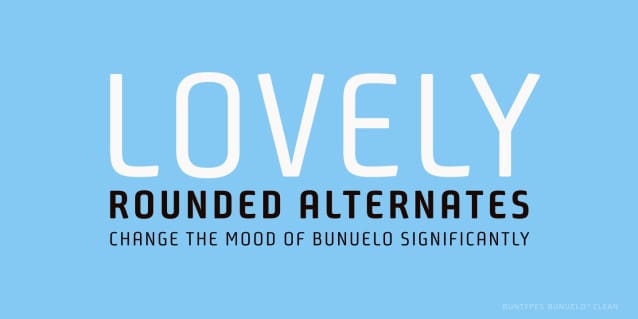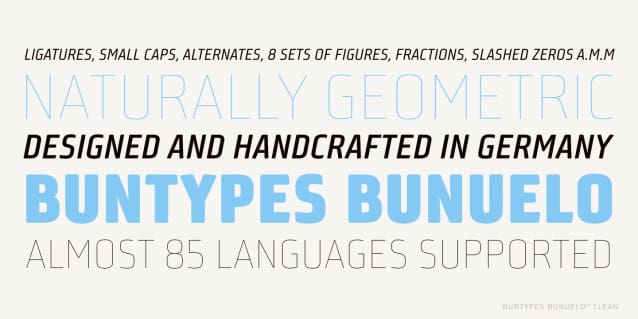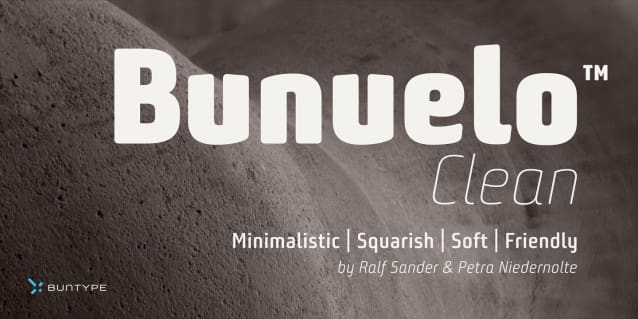
Bunuelo Clean Pro Font Family
Bunuelo Clean Pro Font Family, A contemporary, clear and minimalistic font with a friendly and smooth appearance. Bunuelo™ Clean is based on a squarish form, all edges are slightly rounded and spurs are completely absent. In addition, the endings of terminals follow the curvature. This gives the glyphs a very smooth, friendly and a little bit bubbly look – especially in the bolder styles because the smoothing increases with the weight. Together with the minimalistic and clear letterforms, Bunuelo™ Clean has become a very distinct, strong character. Bunuelo™ Clean ships with 8 upright and 7 real italic styles from an unusually thin Hair to a pretty fat Heavy weight. It provides a bunch of professional typographic features like stylistic alternates, ligatures, Small Capitals, 9 sets of figures, slashed zeros, support for at least 58 languages and much more. Each professional style contains up to than 870 Characters.